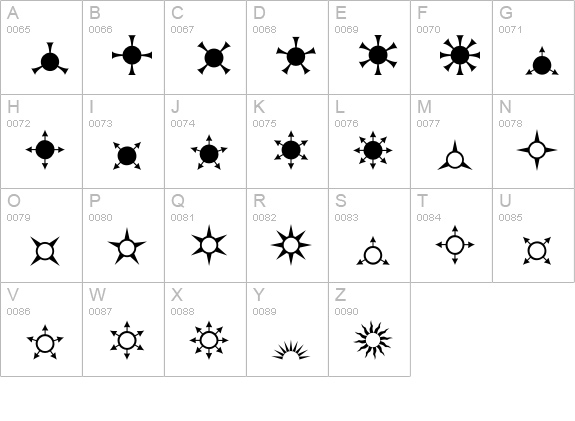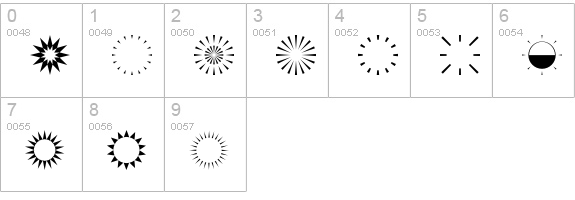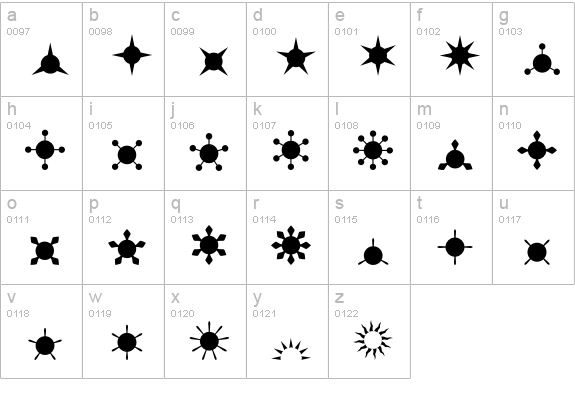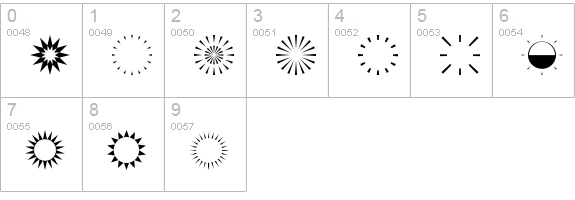
AltemusSunsBold Font Details
AltemusSunsBold is a striking and versatile display font that exudes confidence and modernity. With its bold and impactful design, this font is perfect for headlines, titles, and branding projects that require a strong visual presence. The clean lines and sharp edges of AltemusSunsBold make it stand out on any design, adding a touch of sophistication and elegance. And the best part? AltemusSunsBold is available for free download at FontsMarket.com! This means you can easily access this high-quality font and use it in your creative projects without any cost. Whether you're designing a poster, logo, or website, AltemusSunsBold is sure to make a statement and elevate your design to the next level. Don't miss out on the opportunity to enhance your work with this exceptional font – download AltemusSunsBold today and let your creativity shine!